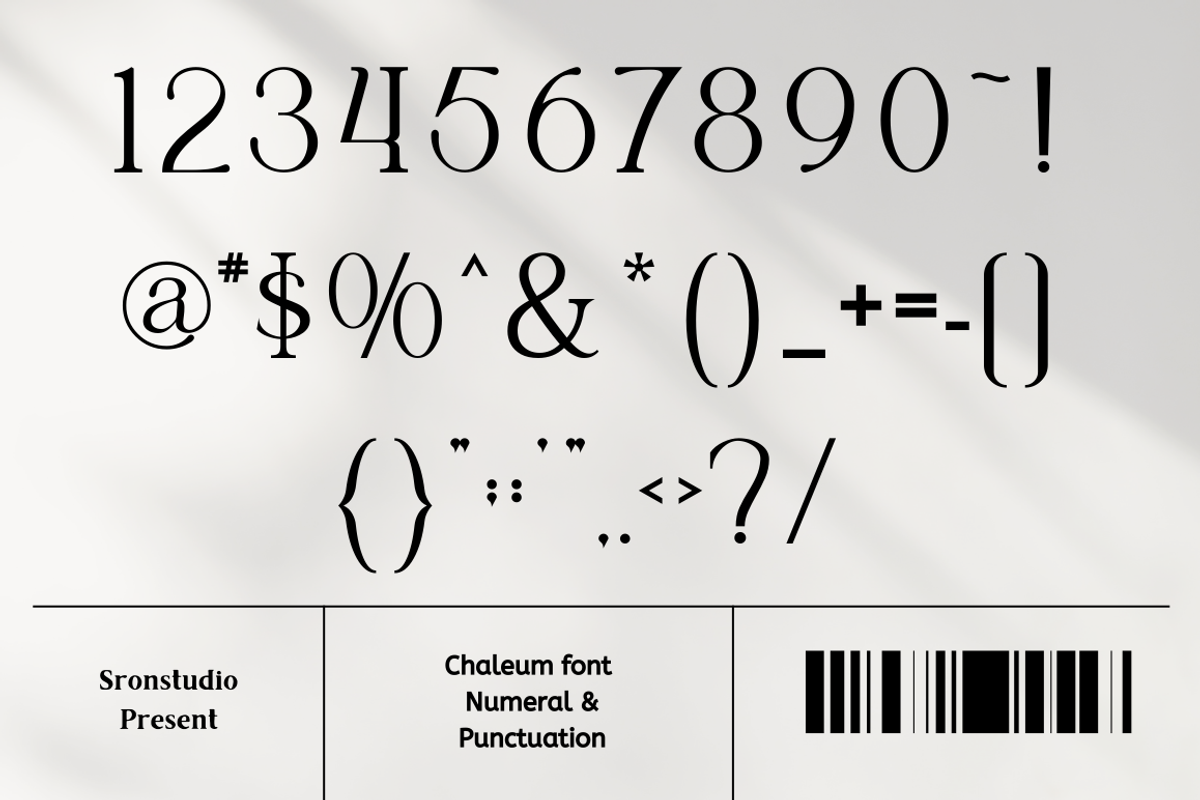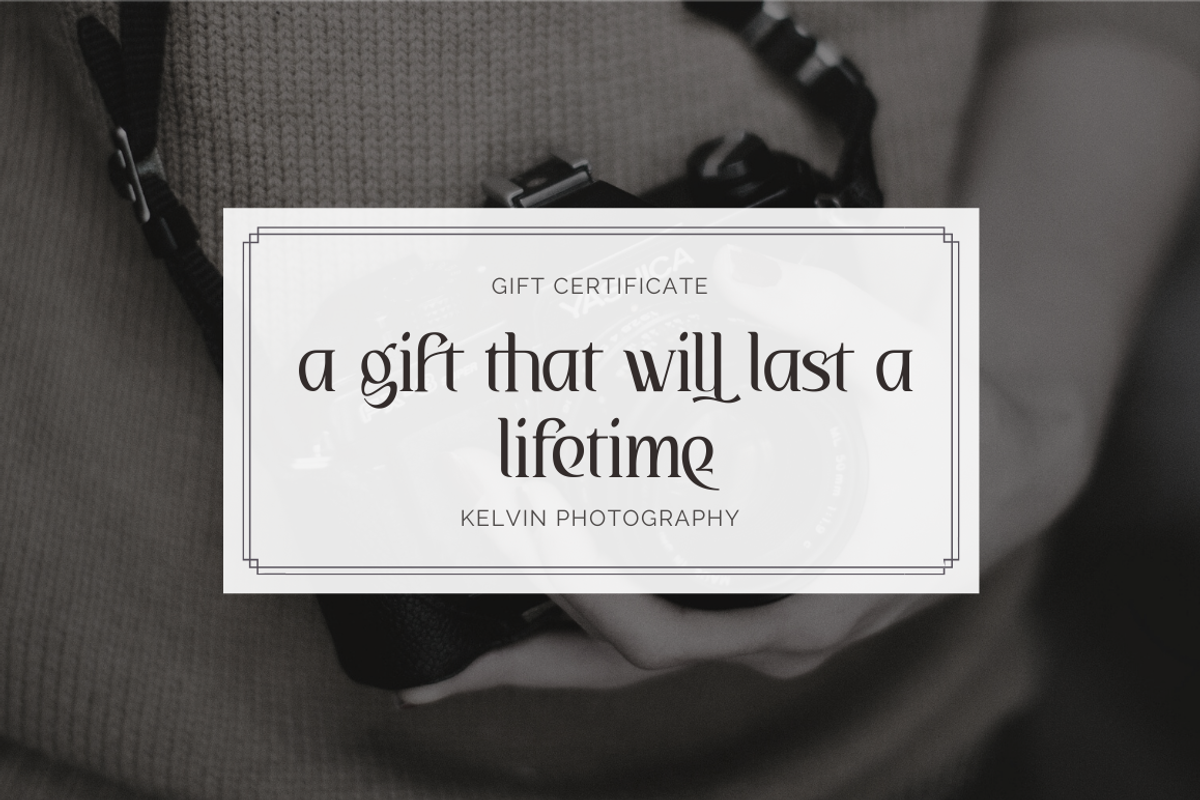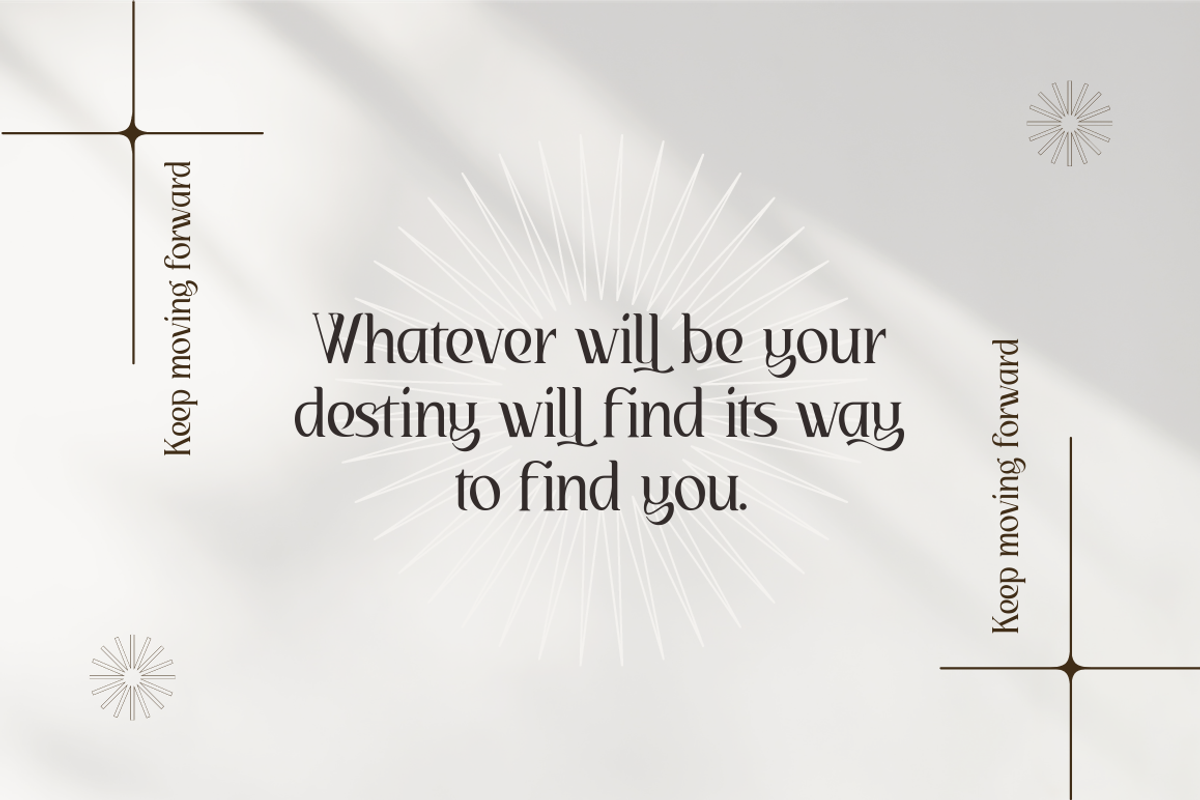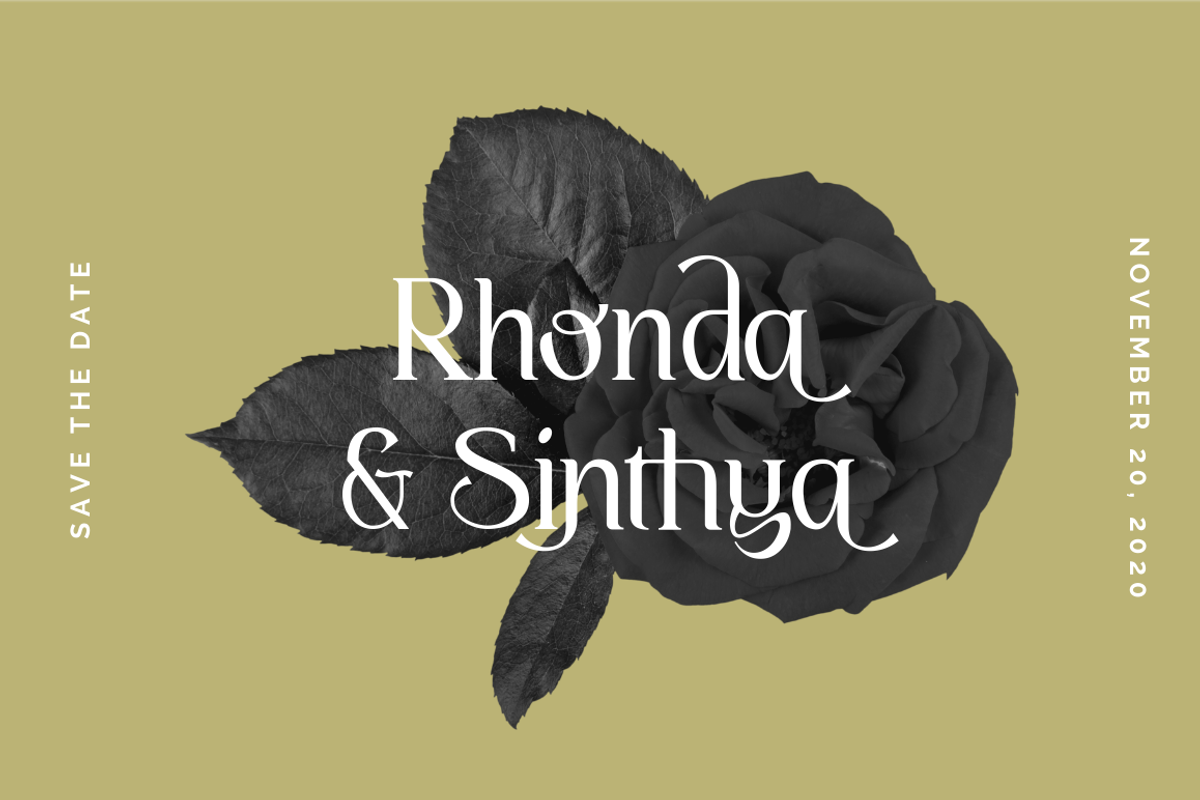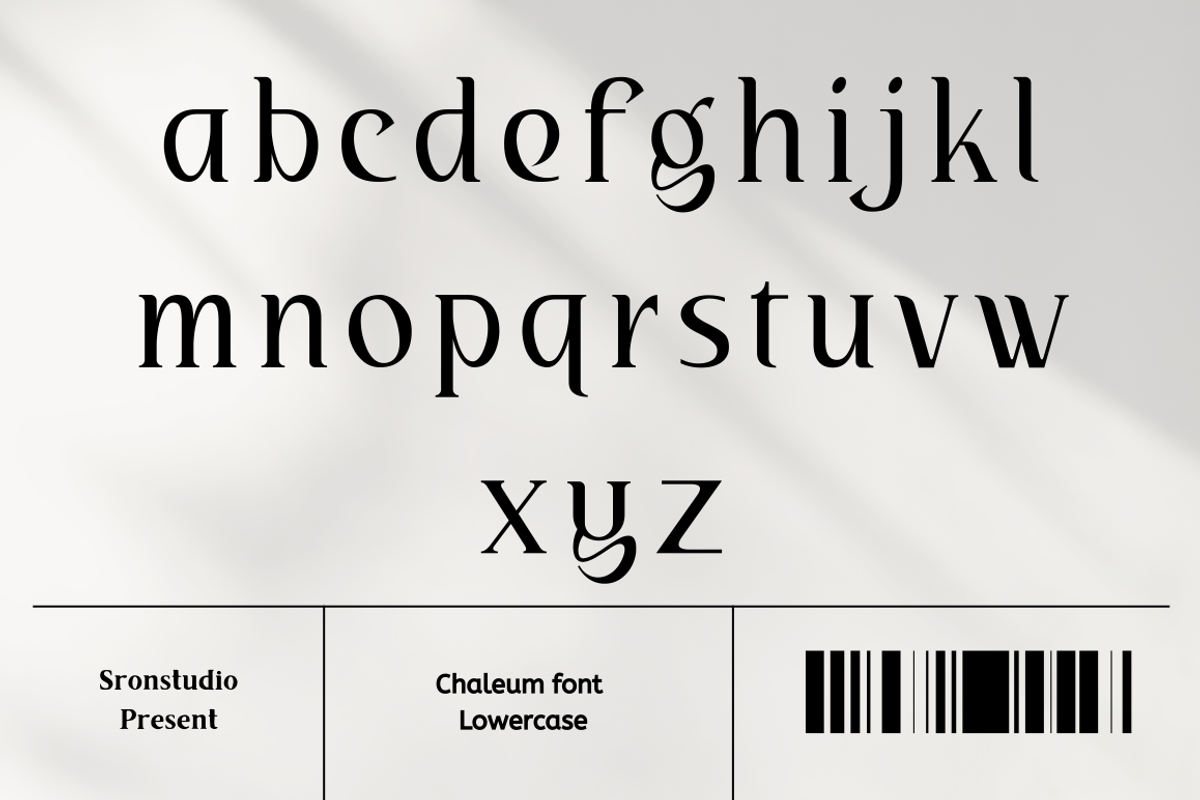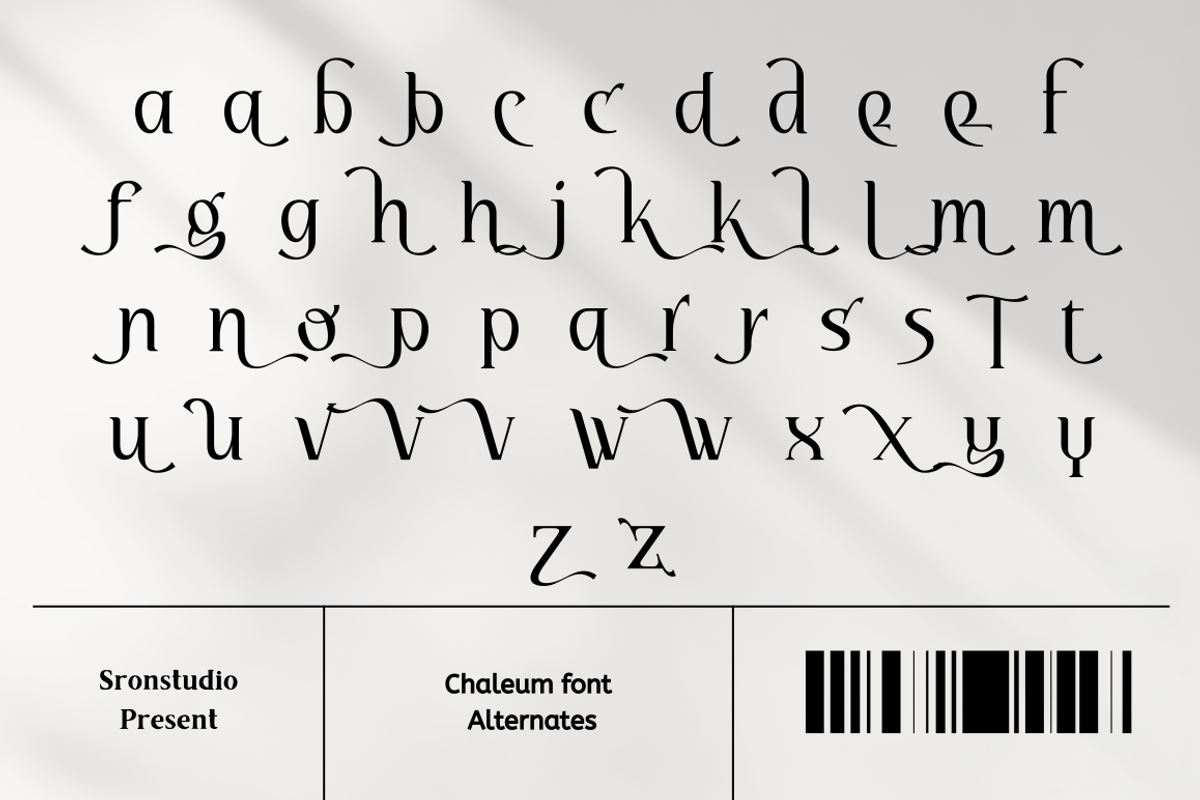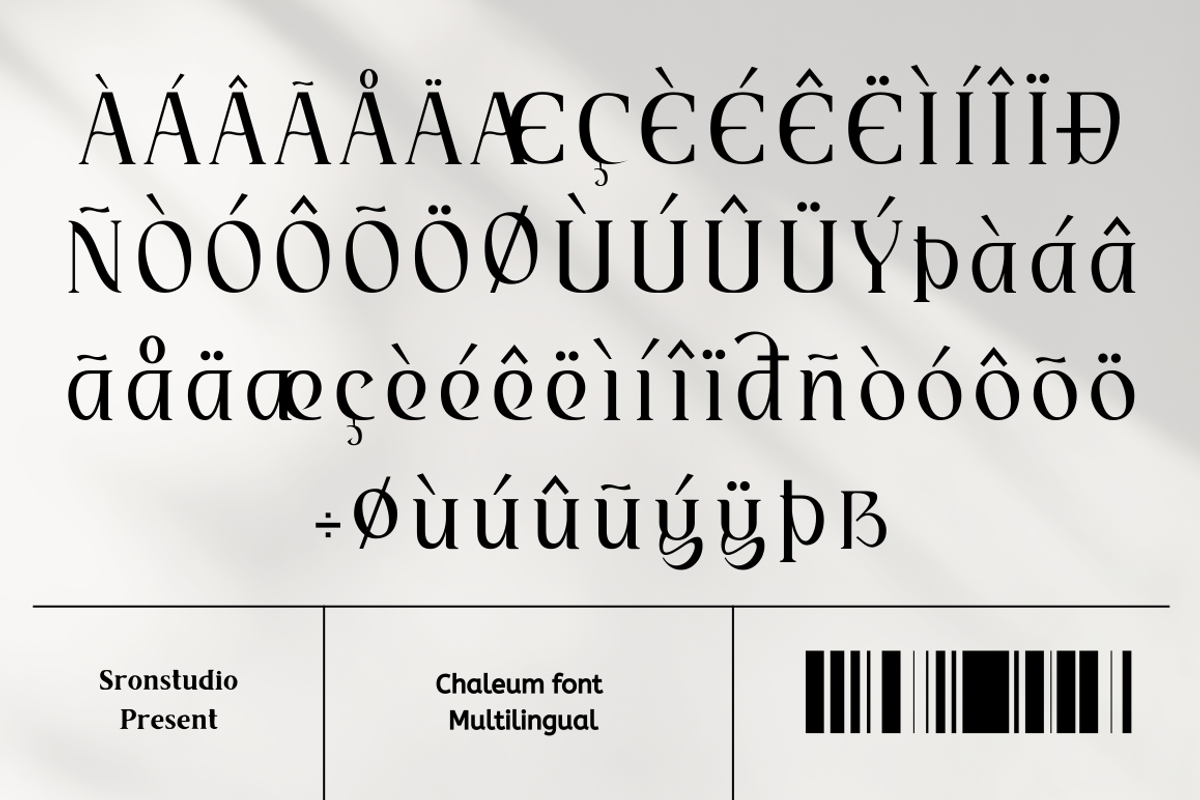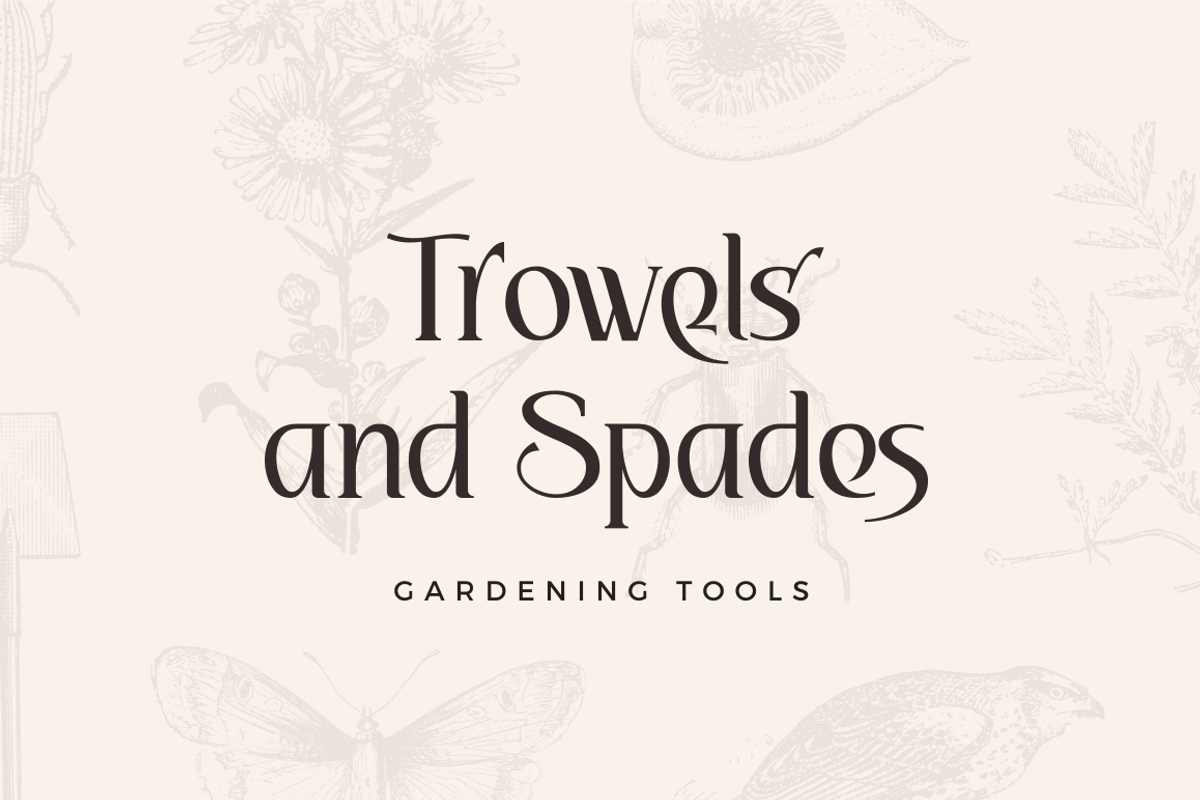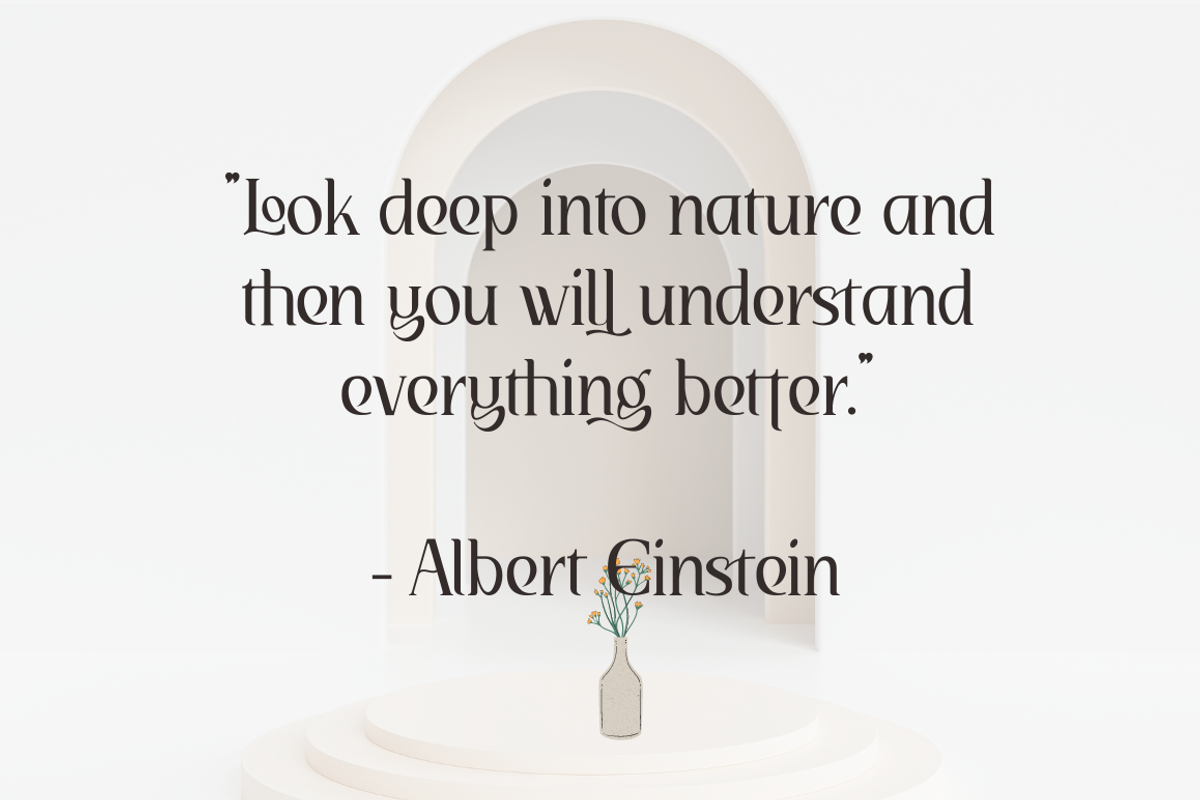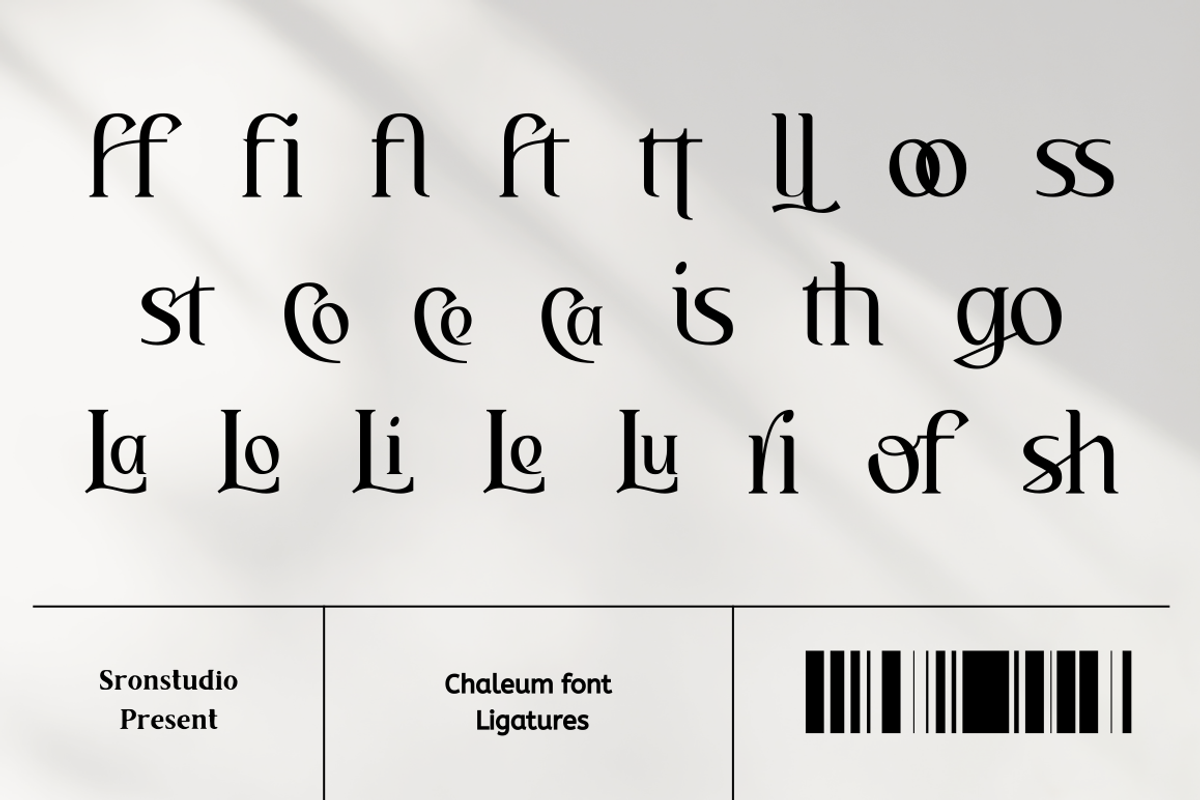
Chaleum Display Font
Chaleum Display Font comes with an elegant and modern touch this font is perfect for branding, invitation, stationery, wedding designs, social media posts, advertisements, product packaging, product designs, label, photography, watermark, and special events, and more.
- Uppercase and lowercase letters
- 42 Alternates Swashes
- 23 Ligatures
- Multilingual, numerals, and punctuation